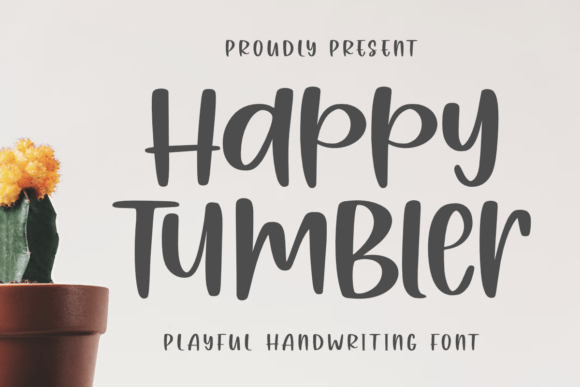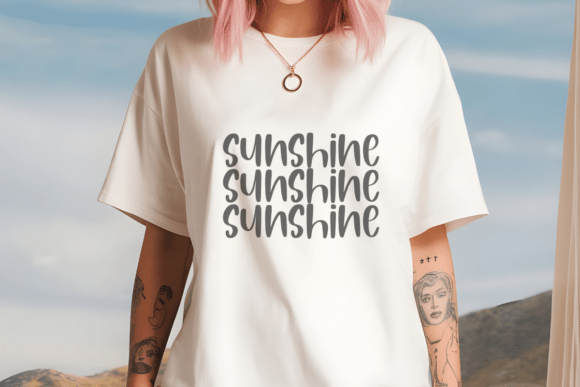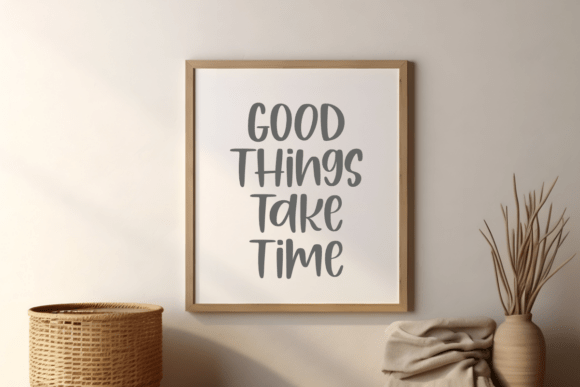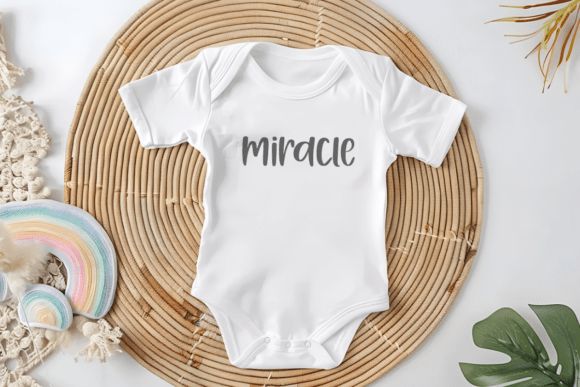
Happy Tumbler Font
About the Happy Tumbler Font
Experience the unique personality of Happy Tumbler Font, a font designed for impact. Happy Tumbler is a fun and cheerful handwritten font that brings a touch of playfulness to your creative projects. With its smooth strokes and friendly vibes, it’s perfect for designing tumblers, mugs, Mother’s Day crafts, kids’ shirts, stickers, and much more! Add a personal and joyful touch to every design with Happy Tumbler.
Happy Tumbler’s playful energy makes it ideal for projects needing a friendly, approachable feel. It excels in short headlines, logos for children’s products, social media graphics, and packaging for playful brands. Avoid using it for large blocks of text or UI elements; its informal style is less legible at smaller sizes.
Pairing it with a clean sans-serif like Montserrat for body copy creates a balanced design. For a more sophisticated touch, consider a classic serif like Garamond. Alternatively, a geometric sans-serif like Futura could offer a modern contrast to Happy Tumbler’s hand-drawn charm.
Its overall personality is undeniably cheerful and approachable, making it a great choice for brands targeting a young, lighthearted audience.
Happy Tumbler Font Example